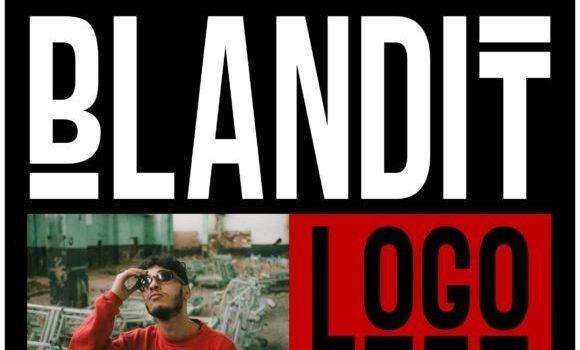
Blandit Font – Free Download Introduction to Blandit Font Blandit is an exclusive and attractive display font with an elegant edge. 📸 Preview Gallery 6 images 📌 Product Name Blandit Font 👤 Author Webhance 📂 Category Explore ⬇️ Download Blandit